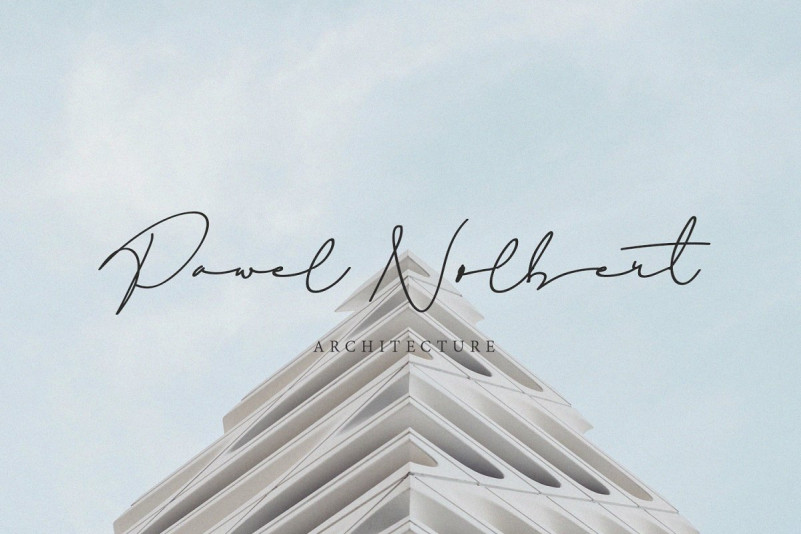
Dear Nathan Signature Font
Hello friend. A hand-drawn script font with a natural. This signature script moves with ease across any design, and adds a large dose of confidence and style. Introducing Dear Nathan Font. A handwritten font which is very elegant and modern for you to use and your design interests be it for logos, branding names, posters, podcasts and so on. This is perfect for you all. There it is! I really hope you enjoy it – comments & likes are always welcome and accepted. More importantly, don’t hesitate to send a message if you have a problem or question.